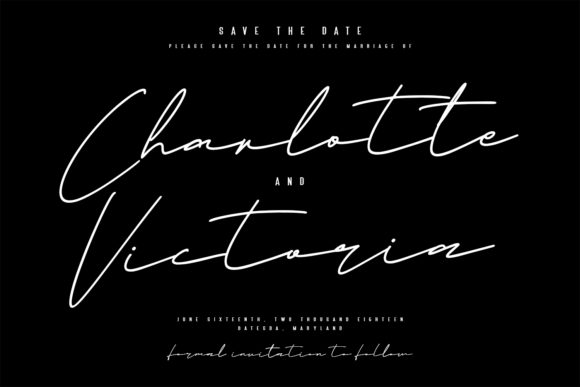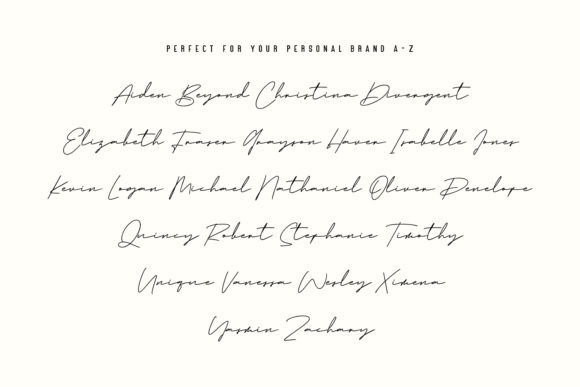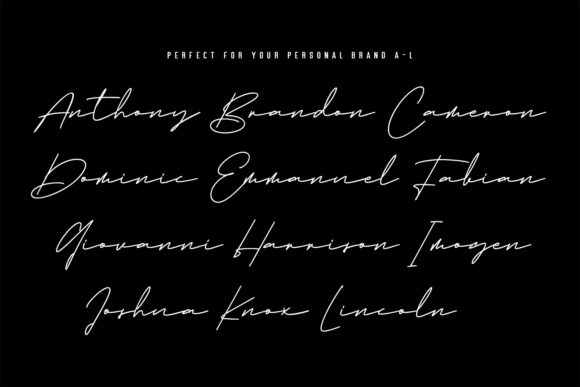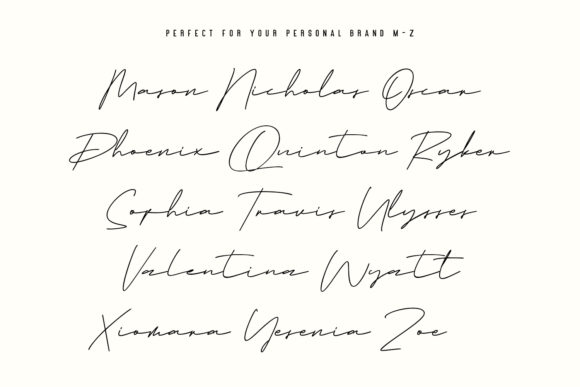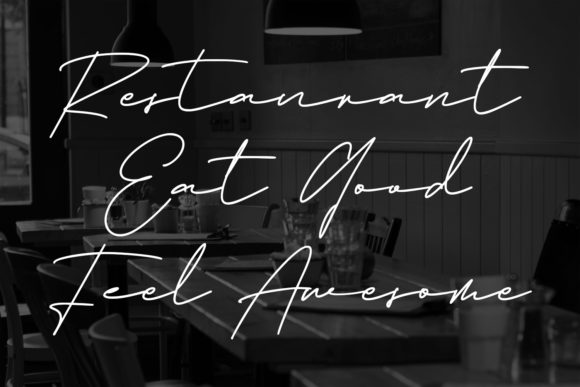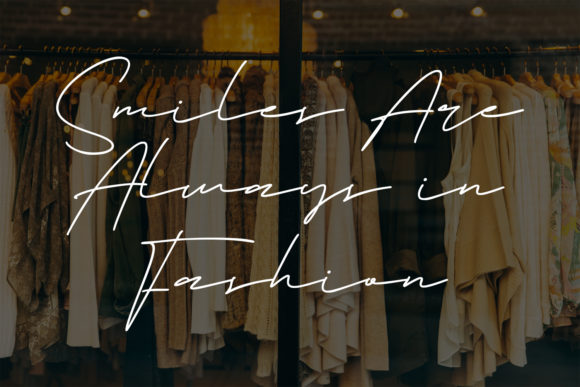
The Emma Goulding Font: A Timeless Elegance for Your Designs
Have you ever been in the middle of a design project, and suddenly, you just can’t seem to find the right font? I recall a particularly frustrating moment when I was working on a branding project for a luxury client. The brief was simple: create a sophisticated, elegant look that exudes refinement. But, as I scrolled through my font library, nothing seemed quite right. That was until I stumbled upon the Emma Goulding font. ✨
I’m thrilled to share my thoughts on the Emma Goulding font. Here’s what I love:
- ✅ Its incredibly distinct and timeless style
- ✅ The elegant touch that adds a touch of sophistication to any design
- ✅ The flowing handwritten script that’s perfect for creating beautiful text
- ✨ The versatility to work well in a variety of design contexts, from logos to social media graphics
Of course, no font is perfect, and there are a few small quirks to be aware of:
- ⚠️ Some users may find the font a tad too ornate for very minimalist designs
- 🤔 It may not be the best choice for very long blocks of text, as it can be a bit challenging to read
One of the standout features of the Emma Goulding font is its OpenType features and glyphs. These allow you to customize the font to suit your design needs. For example, you can:
- Access alternative characters and ligatures to add visual interest
- Use stylistic alternates to create a more uniform look
- Explore the glyphs panel to discover new characters and symbols
The Designer Inspiration Behind Emma Goulding
The Emma Goulding font was designed with elegance and sophistication in mind. The creator aimed to craft a font that would evoke a sense of refinement and luxury. While the exact inspiration is unclear, it’s evident that the designer drew from classic calligraphy and handwriting styles.
| Font Name | Emma Goulding Font |
| What is the Emma Goulding font best used for? | The Emma Goulding font is perfect for designs that require a touch of elegance and sophistication, such as luxury branding, wedding projects, and high-end advertising. |
| Is the Emma Goulding font suitable for body text? | While the Emma Goulding font is beautiful, it may not be the best choice for long blocks of body text. It’s better suited for headlines, titles, and short paragraphs. |